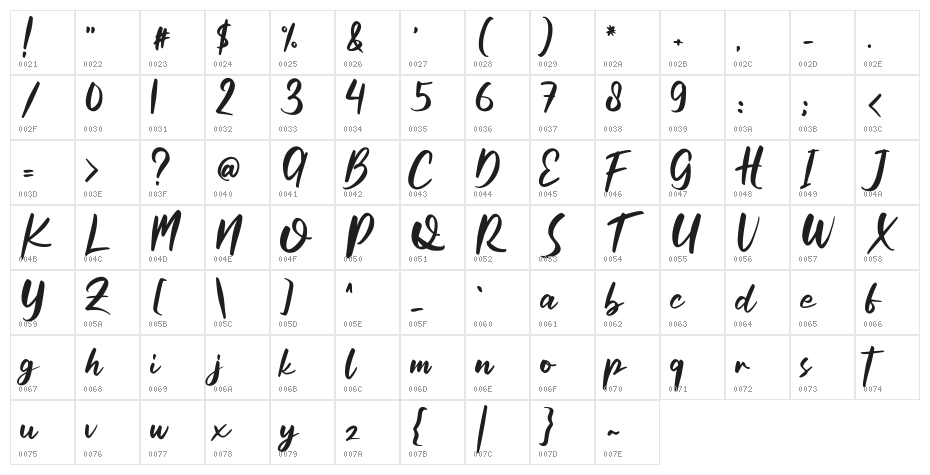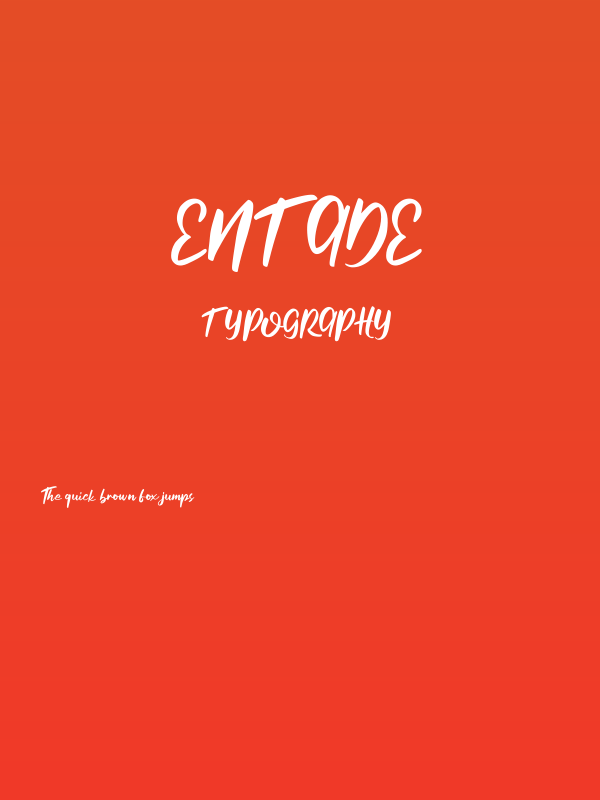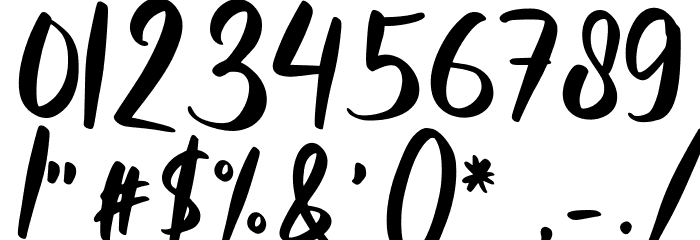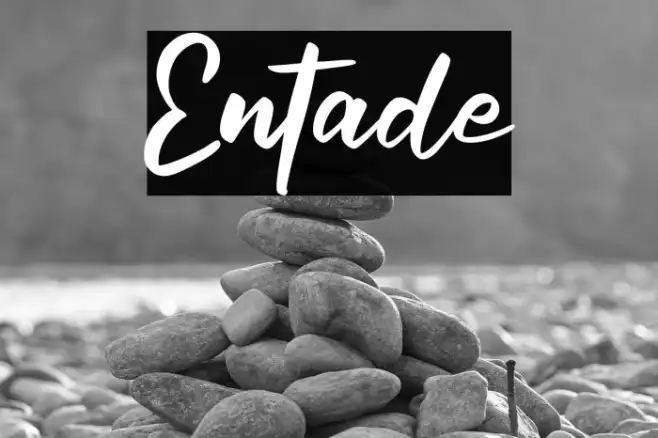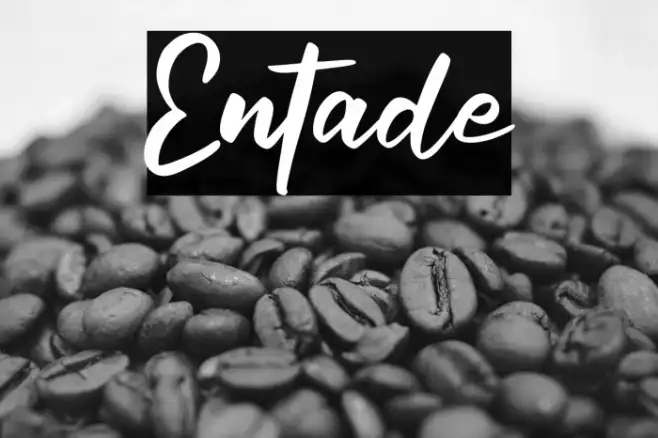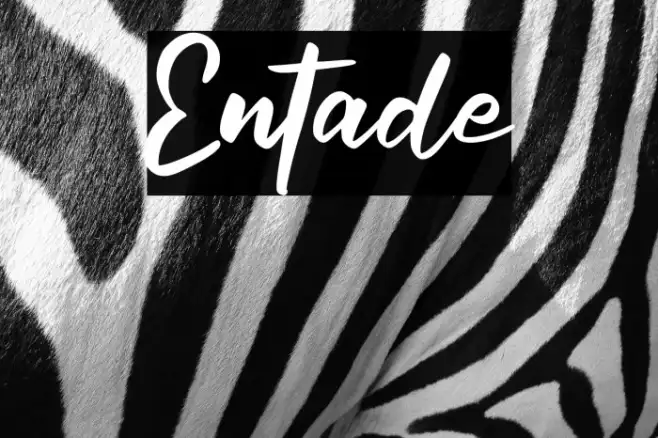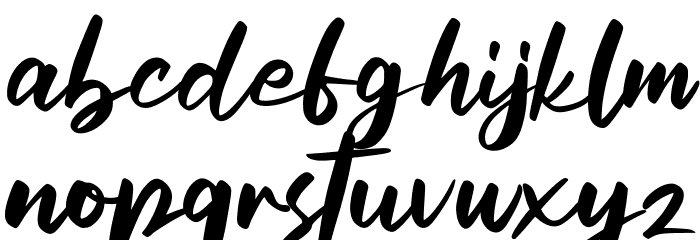
Entade Font
Entade Description
This font exudes a lively and dynamic energy with its bold, sweeping strokes and fluid, cursive style. The uppercase letters are characterized by their dramatic flourishes and varying line thickness, creating a sense of movement and elegance. The lowercase letters maintain a consistent flow, with rounded forms and smooth connections that enhance readability while retaining a handcrafted feel. The numerals are equally expressive, with a playful yet sophisticated appearance. Special characters are integrated seamlessly, adding to the font's versatility. Overall, this font combines a modern aesthetic with a touch of artistic flair, making it suitable for a wide range of creative applications.